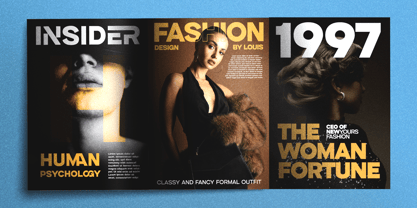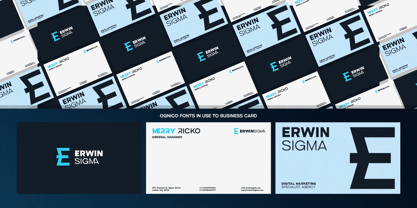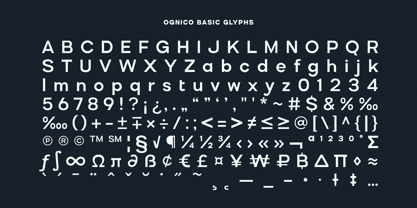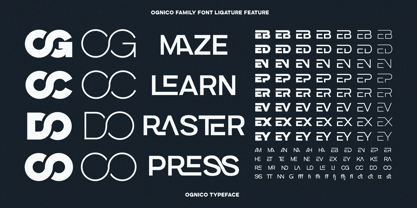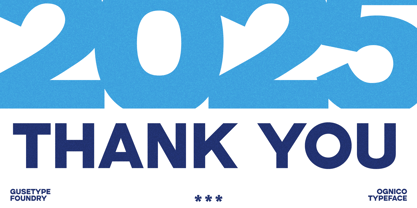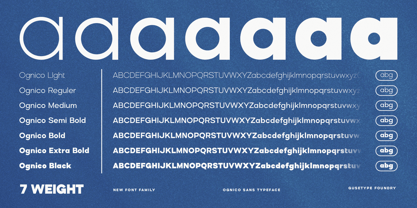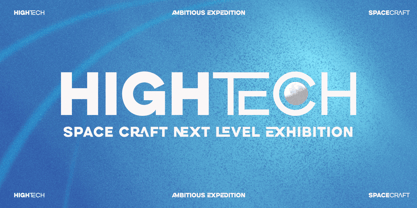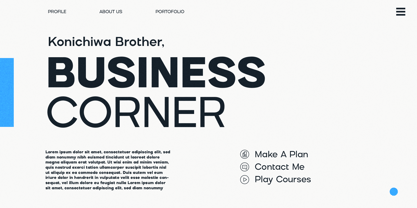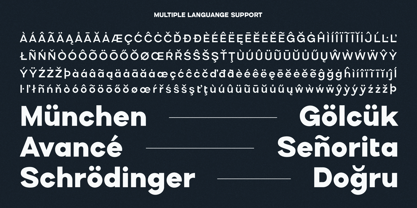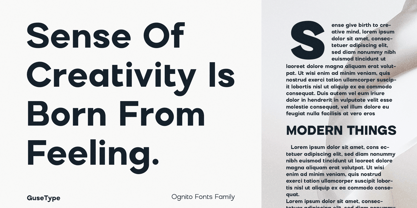
Ognico
by GuseType
The Ognico Font Family was designed by Guntur Septyan and published by GuseType. Ognico contains 7 styles and family package options.
Ognico is a modern futuristic sans-serif typeface designed for versatility and impact. Characterized by its clean, geometric structure and carefully balanced proportions, it offers exceptional legibility across a range of sizes. This font family includes Light, Regular, Medium, Bold, Semi-bold, Extra Bold and Black, providing a comprehensive toolkit for project like logo design, branding, posters, magazines, album covers and beyond . Ognico offer ideal choice for projects seeking a contemporary and technologically advanced feel and it has several features such as multilingual support, symbols, alternatives and ligatures.
Designers: Guntur Septyan